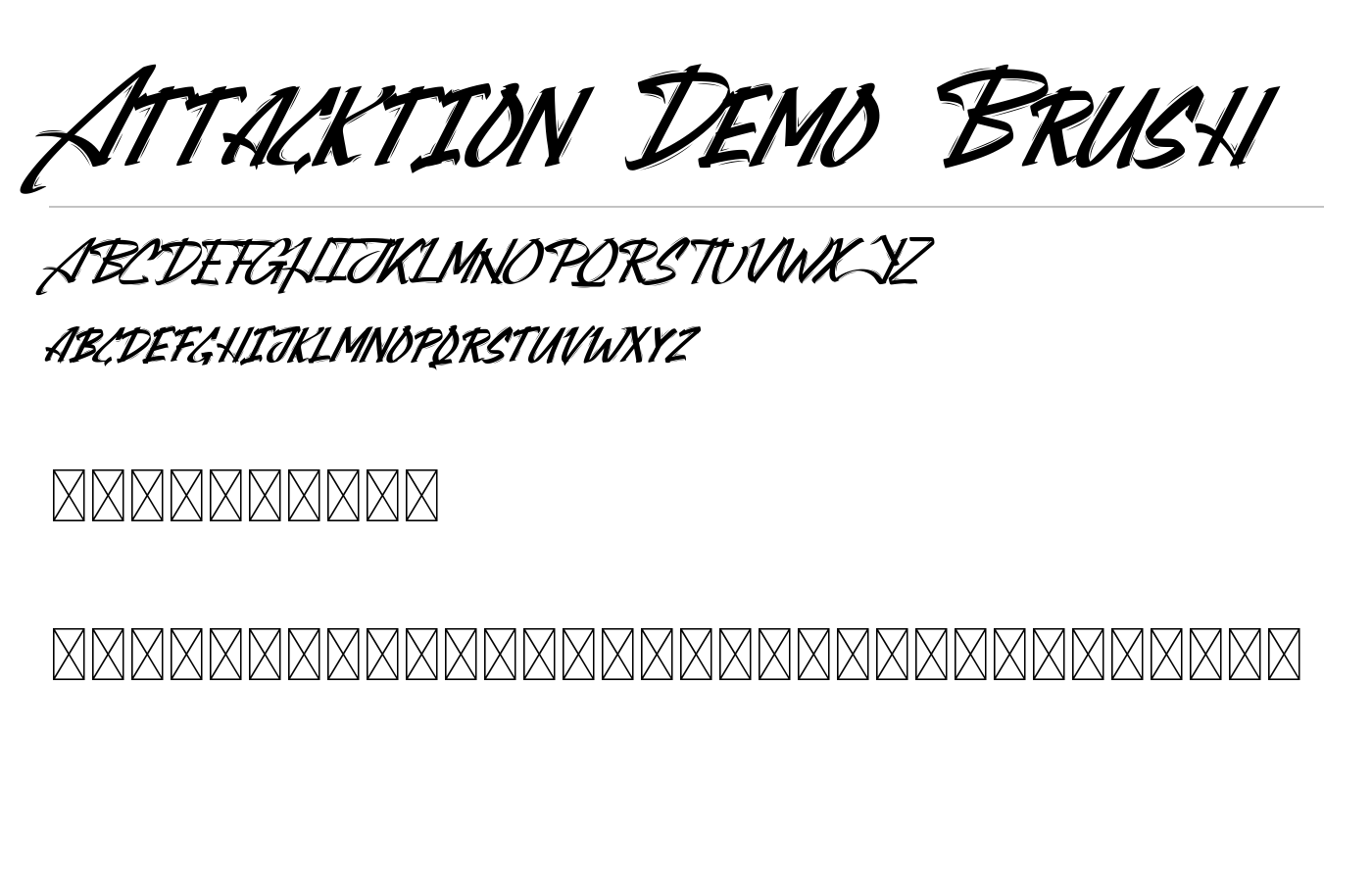
Attacktion Demo is an energetic brush script font with a dynamic, hand-painted feel. It features sharp, jagged strokes and a slanted, italicized style that conveys movement and intensity, making it ideal for edgy, youthful designs like sports branding, posters, and urban-themed logos. This font’s bold, expressive character works best in headlines where a strong, rebellious attitude is desired.
Attacktion Demo Font
About Attacktion Demo Font
| Font family | Attacktion Demo Font |